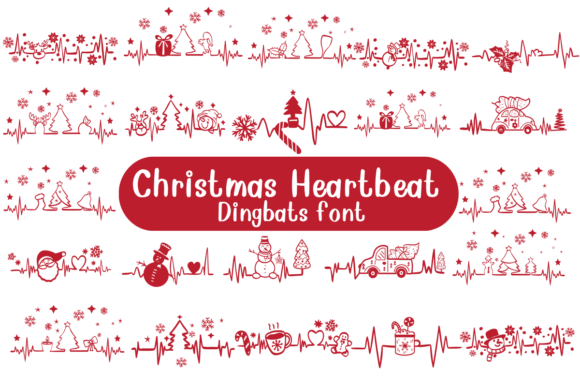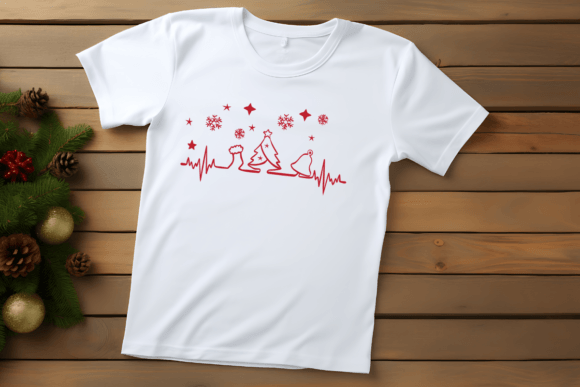
Christmas Heartbeat Font
Christmas Heartbeat is a playful dingbat font featuring heartbeat lines decorated with Christmas-themed elements like stars, trees, and bells. Each heartbeat pulse is styled with festive touches, making it perfect for holiday designs and projects.